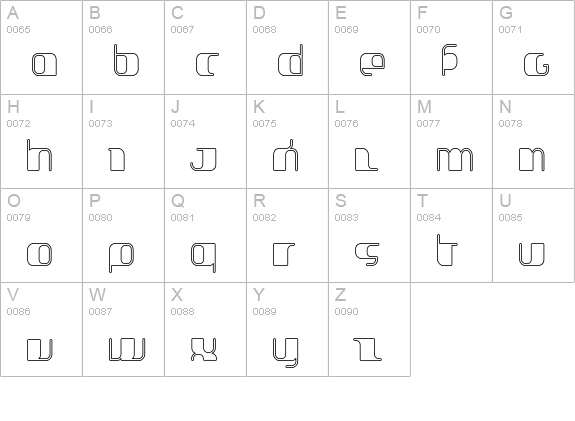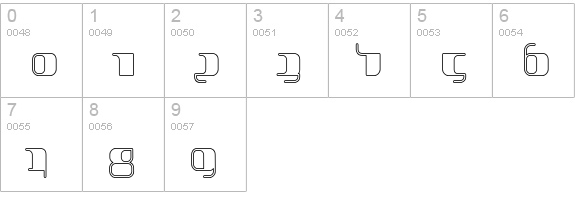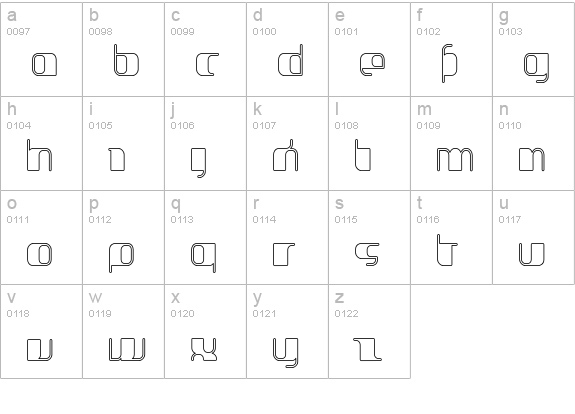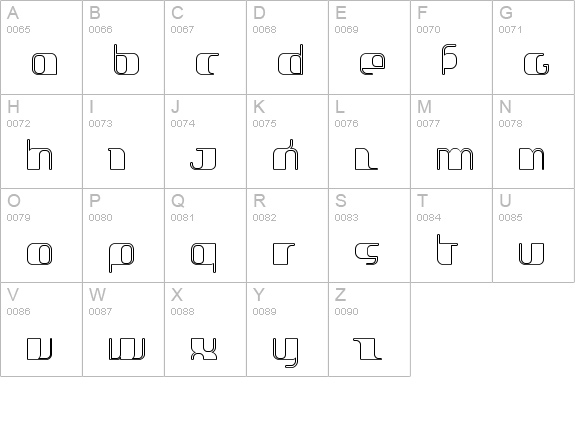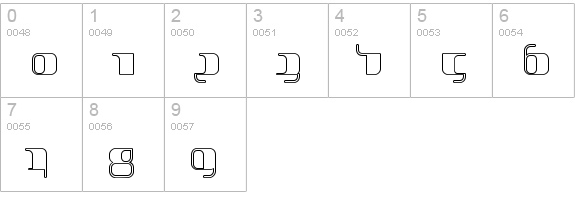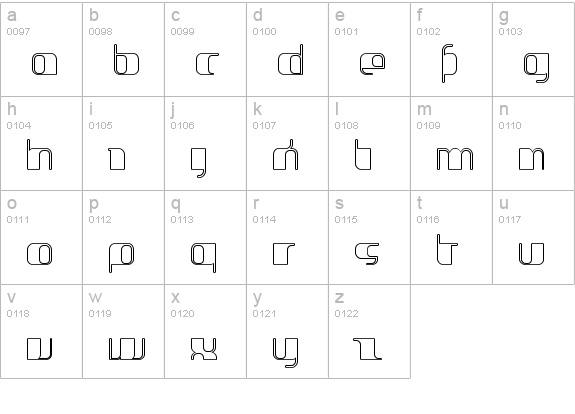
Introducing Jakone-Outline, a stunning font that embodies elegance and modernity. This versatile typeface is perfect for a wide range of design projects, from branding and advertising to web design and social media graphics. Jakone-Outline stands out with its sleek and clean lines, giving your text a professional and polished look. With its unique and eye-catching design, Jakone-Outline is sure to make a lasting impression. Whether you're looking to create bold headlines or delicate typography, this font has you covered. Its distinct outline style adds a touch of sophistication to any project, making it a standout choice among other fonts. And the best part? Jakone-Outline is completely free for personal and commercial use. You can easily download this font at FontsMarket.com, where it is available for instant download. Now, you can effortlessly elevate your designs without breaking the bank. Don't miss out on this incredible opportunity to enhance your creative projects with Jakone-Outline. Download this font today and start adding a touch of elegance and modernity to your designs.